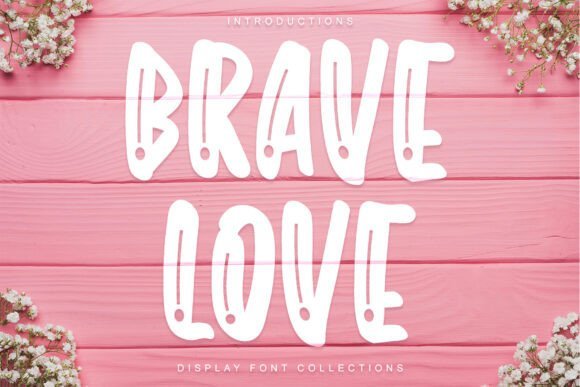
Unleashing the Joy of Brave Love Font
Do you remember the moment when a single font changed the entire vibe of your design? For me, it was the moment I stumbled upon the Brave Love Font. Its quirky charm instantly captured my heart, and I knew I had to incorporate it into my next project. As a designer, I’m always on the lookout for fonts that evoke emotions and bring a smile to people’s faces.
Brave Love Font is a delightful display font perfect for spreading joy and positivity. Its playful nature makes it an ideal choice for children’s themed designs, and when paired with bright colors, it’s truly unstoppable. Whether you’re creating a birthday invitation, a kids’ book cover, or a fun infographic, Brave Love Font is sure to add a touch of whimsy and excitement. Its versatility makes it a valuable addition to any designer’s toolkit.
- Unique Characteristics: This font features a unique, hand-drawn design with bold lines and intricate details, making it perfect for creating eye-catching headings and titles.
Designer Review: Brave Love Font
Brave Love Font is a unique and eye-catching typeface that immediately grabs attention. I love its ✨ eclectic mix of handwritten and brush script elements, which gives it a personal and emotive feel. The font is perfect for creatives who want to add a touch of personality to their designs.
Here are some of the things that work well about Brave Love Font:
- ✨ Unique and distinctive look that sets it apart from other fonts.
- ✨ Excellent for use in creative fields like art, design, and writing.
- ✨ Supports a wide range of languages, making it a great option for global projects.
- ⚠️ May be too ornate for use in simple or straightforward designs.
- ⚠️ Can be difficult to read at small font sizes, especially for those with visual impairments.
- ⚠️ Limited support for certain formatting options, like bold and italic.
Overall, I think Brave Love Font is a great choice for designers who want to add some personality and flair to their work. While it may not be suitable for every project, it’s a fantastic option for creatives who want to stand out from the crowd.
For best results, use the Brave Love Font in titles, headings, and emphasis text. It’s particularly effective in wedding invitations, social media graphics, and inspirational quotes. Experiment with different font sizes and colors to create visual interest.
Use the Brave Love Font in conjunction with other fonts to create a visually appealing design. Balance bold text with more subtle fonts to avoid overwhelming the viewer. Experiment with different font combinations to find the perfect balance for your design.
Alternatives to Brave Love Font
Pacifico is a beautiful script font that is ideal for creating a romantic and elegant look. It is perfect for wedding invitations, birthday cards, and other special occasions. Pacifico is similar to Brave Love Font in its elegant and cursive nature, but it has a more refined and polished look.
Great Vibes is a modern script font that is great for creating a fun and lively atmosphere. It is perfect for social media posts, advertising, and other marketing materials. Great Vibes is similar to Brave Love Font in its playful and expressive nature, but it has a more energetic and youthful vibe.
Dancing Script is a beautiful script font that is ideal for creating a whimsical and romantic look. It is perfect for wedding invitations, birthday cards, and other special occasions. Dancing Script is similar to Brave Love Font in its elegant and cursive nature, but it has a more fluid and dynamic look.